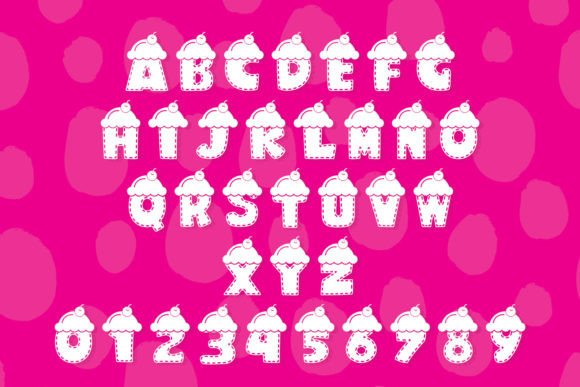
The Sweetest Font You’ll Ever Use: Cup Cake Font
I’ll never forget the time I was working on a birthday party invitation design for a client’s little one. I had the perfect concept, the colors were on point, and the graphics were adorable. But, I was stuck on finding the right font to tie everything together. That’s when I stumbled upon the Cup Cake Font, and let me tell you, it was love at first sight! 💕
Each letter has cupcake tops, adding a delightful touch to your text. This font is perfect for adding a playful and festive element to birthday invitations, party decorations, bakery logos, and more. Let your creativity run wild as you sprinkle your designs with the delicious and irresistible Cupcake Font!
- ✨ Unique and playful design that’s sure to grab attention
- ✅ Easy to use and pairs well with a variety of fonts
- 🎉 Perfect for festive and celebratory designs
- 👍 Highly legible, even in smaller sizes
⚠️ One thing to note is that the Cup Cake Font can be a bit overused if not balanced with other design elements. Also, some letters may not be as crisp in smaller sizes, but this can add to the font’s charm.
🤔 Another thing to consider is that the font may not be suitable for formal or professional designs, as it’s quite playful and whimsical.
The Story Behind Cup Cake Font
The Cup Cake Font was designed by a talented typographer who wanted to create a font that would bring a smile to people’s faces. Inspired by the joy of baking and sharing treats with loved ones, this font was born. With its unique cupcake design, it’s no wonder it’s become a favorite among designers and crafters.